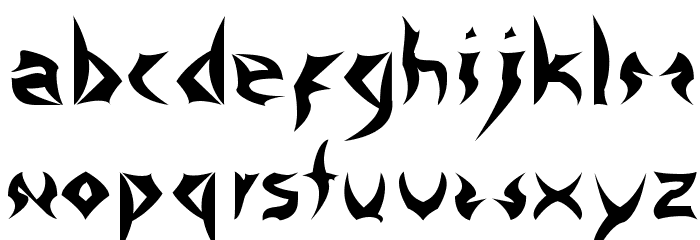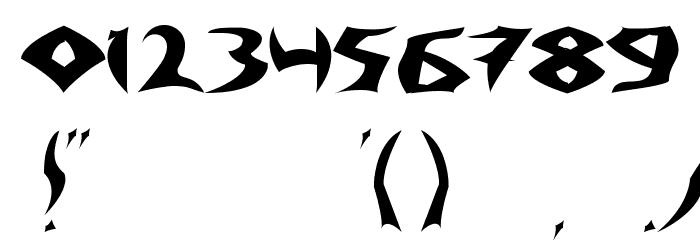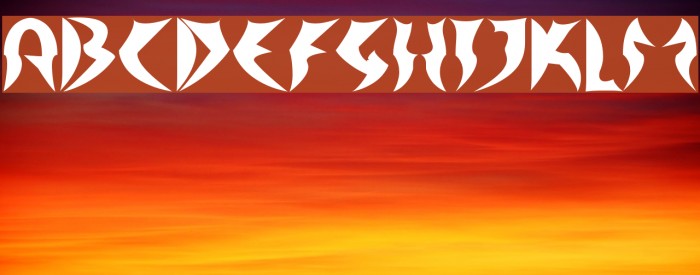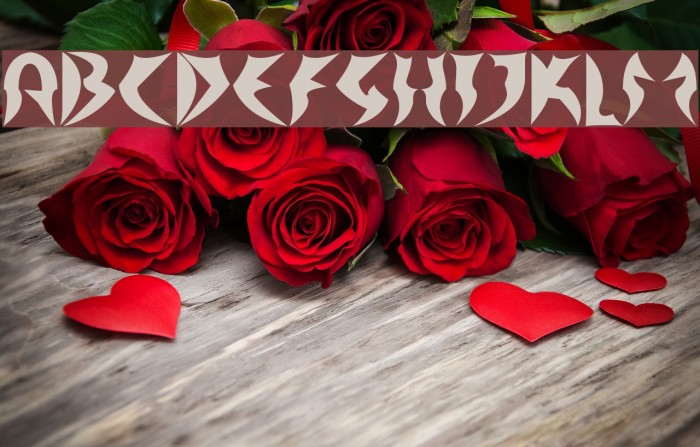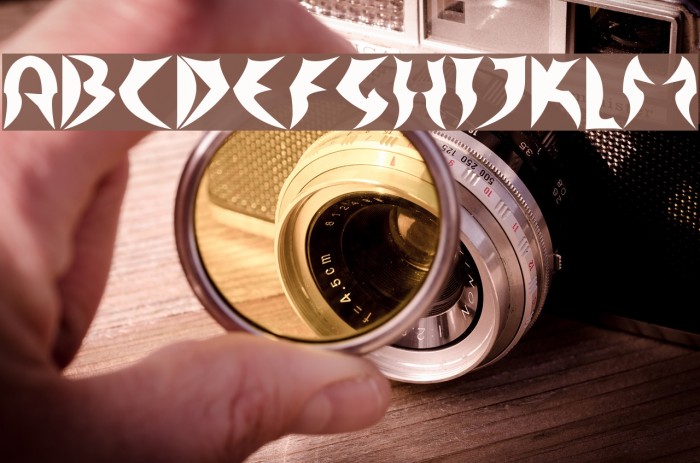
Tattooheavy Font
This font features a bold and edgy design, characterized by sharp, angular strokes and a distinct tribal aesthetic. The uppercase and lowercase letters exhibit a consistent style, with pointed edges and a dynamic flow that suggests movement and energy. The numerals and special characters maintain this cohesive look, adding to the font's overall impact. Its unique appearance makes it stand out, ideal for projects that require a strong visual statement. The font's design is reminiscent of tattoo art, with a modern twist that blends traditional elements with contemporary flair.
A bold, angular font with a tribal tattoo-inspired design.
- Overall Style: Modern, Tribal